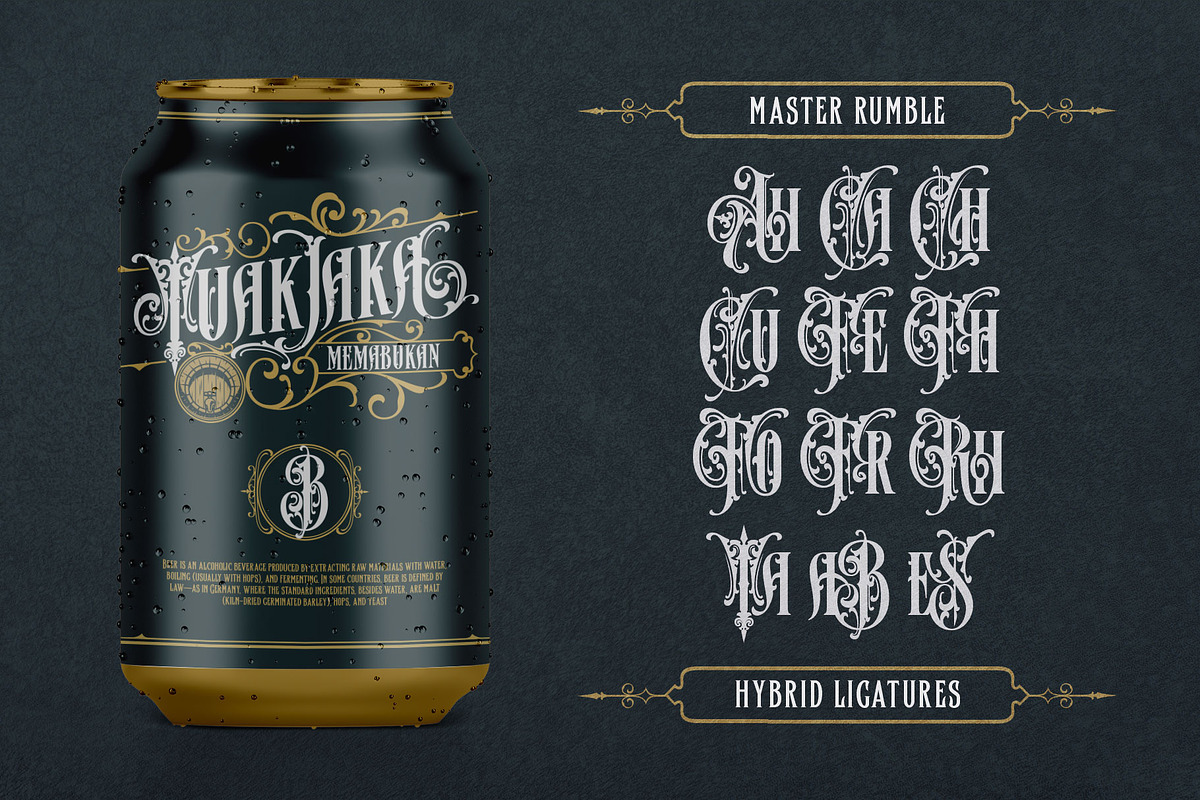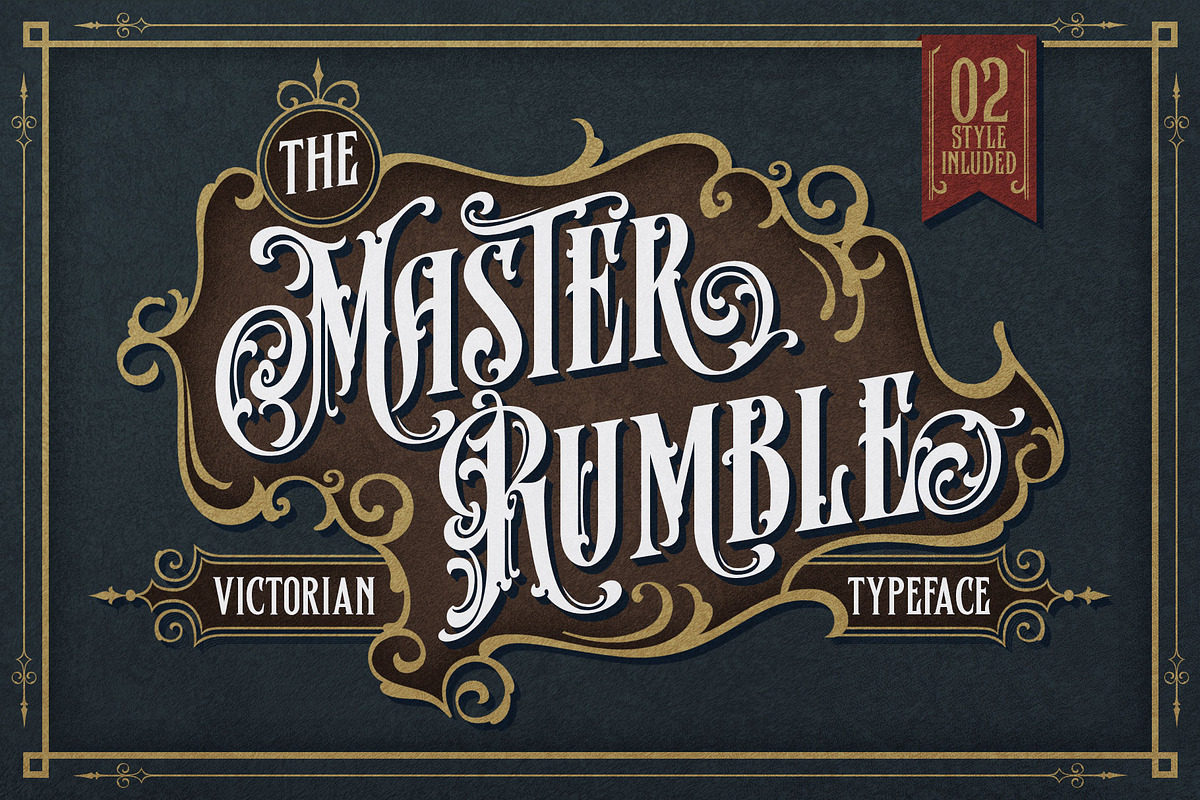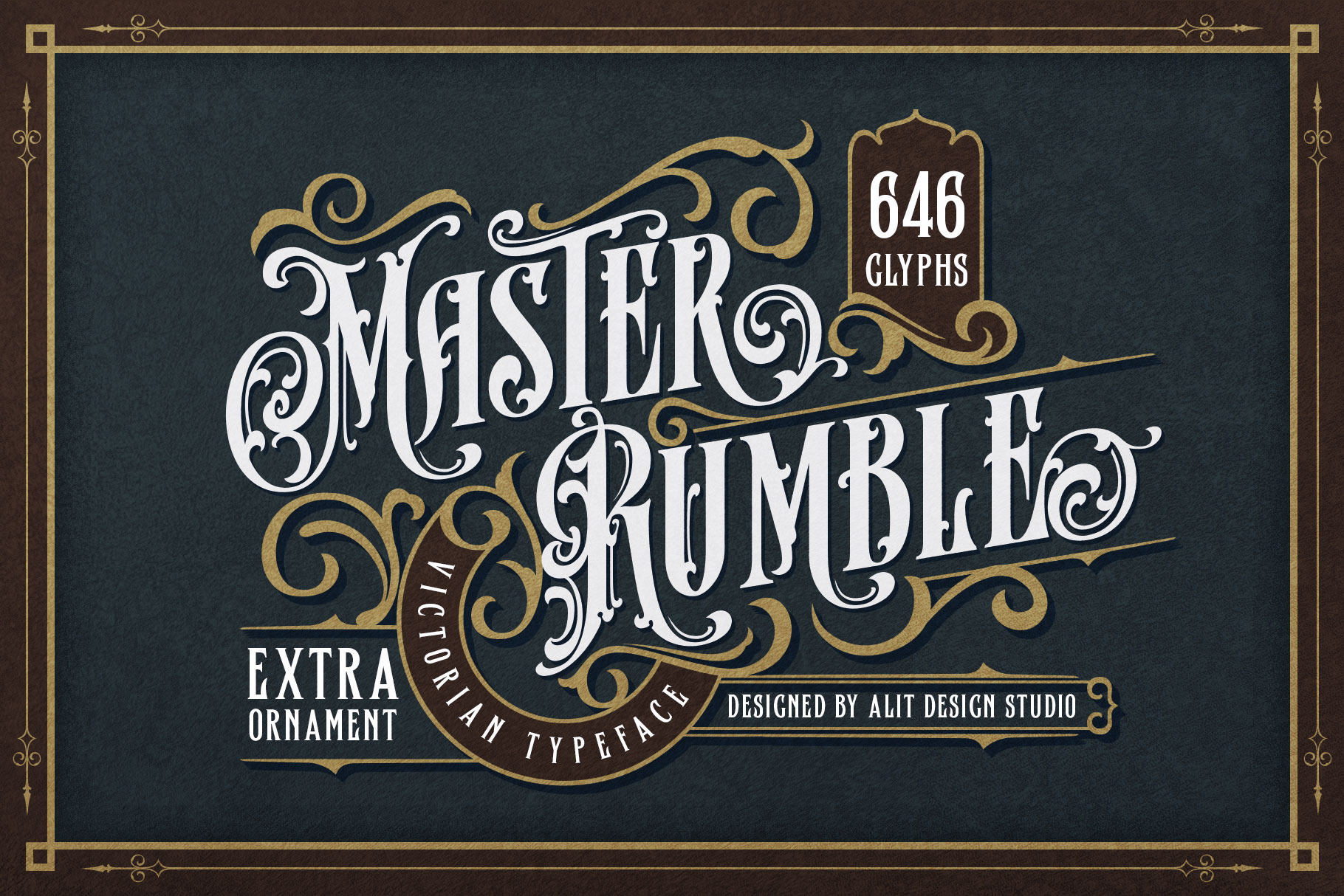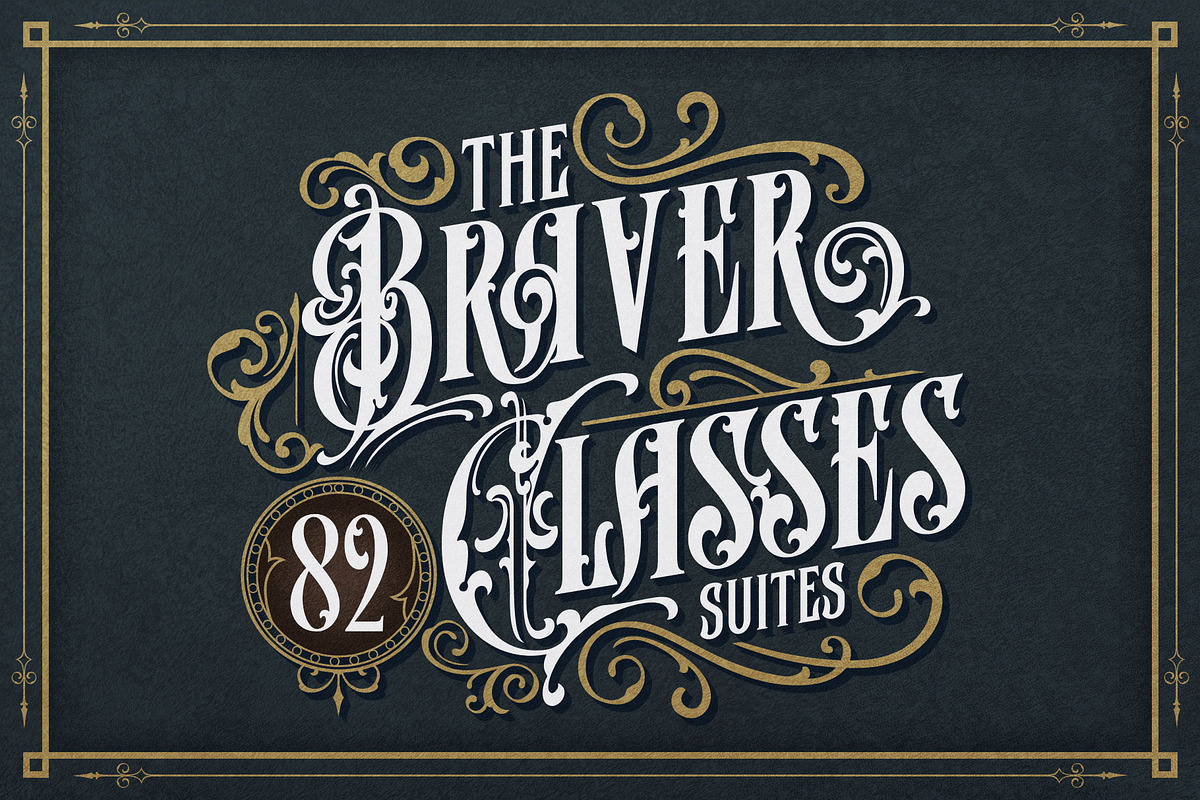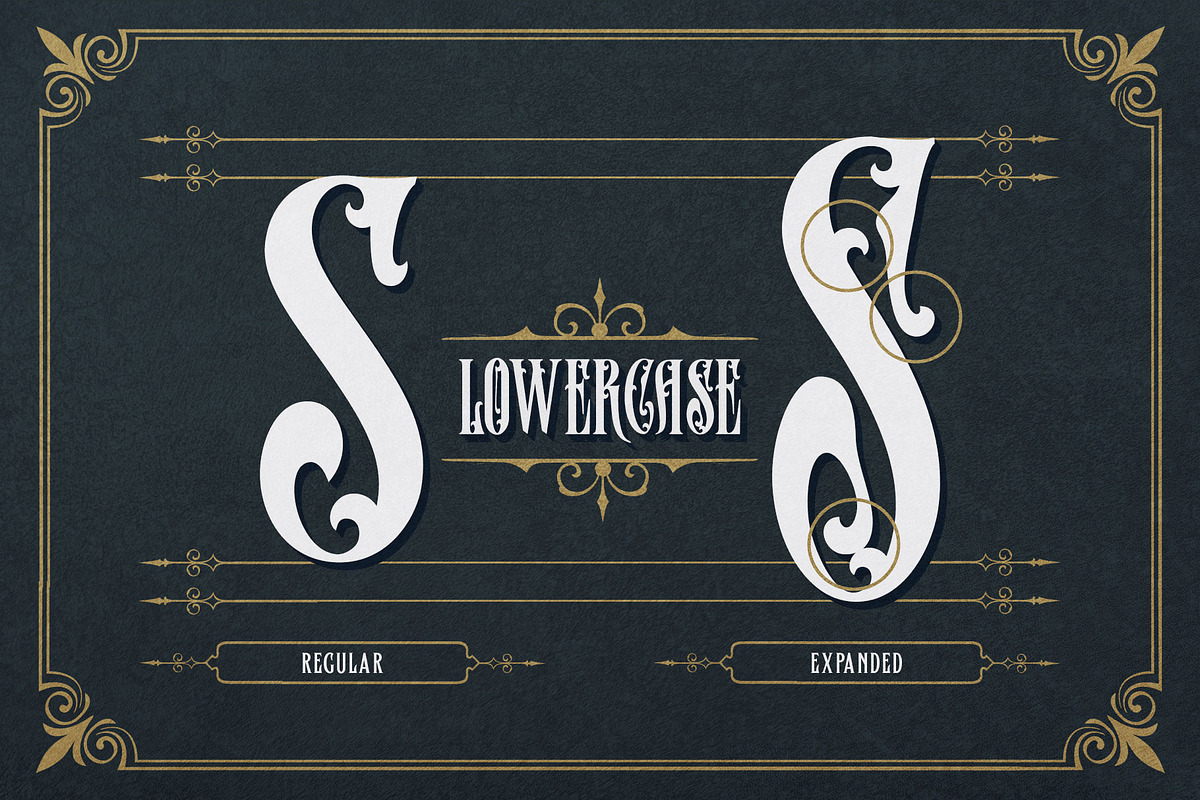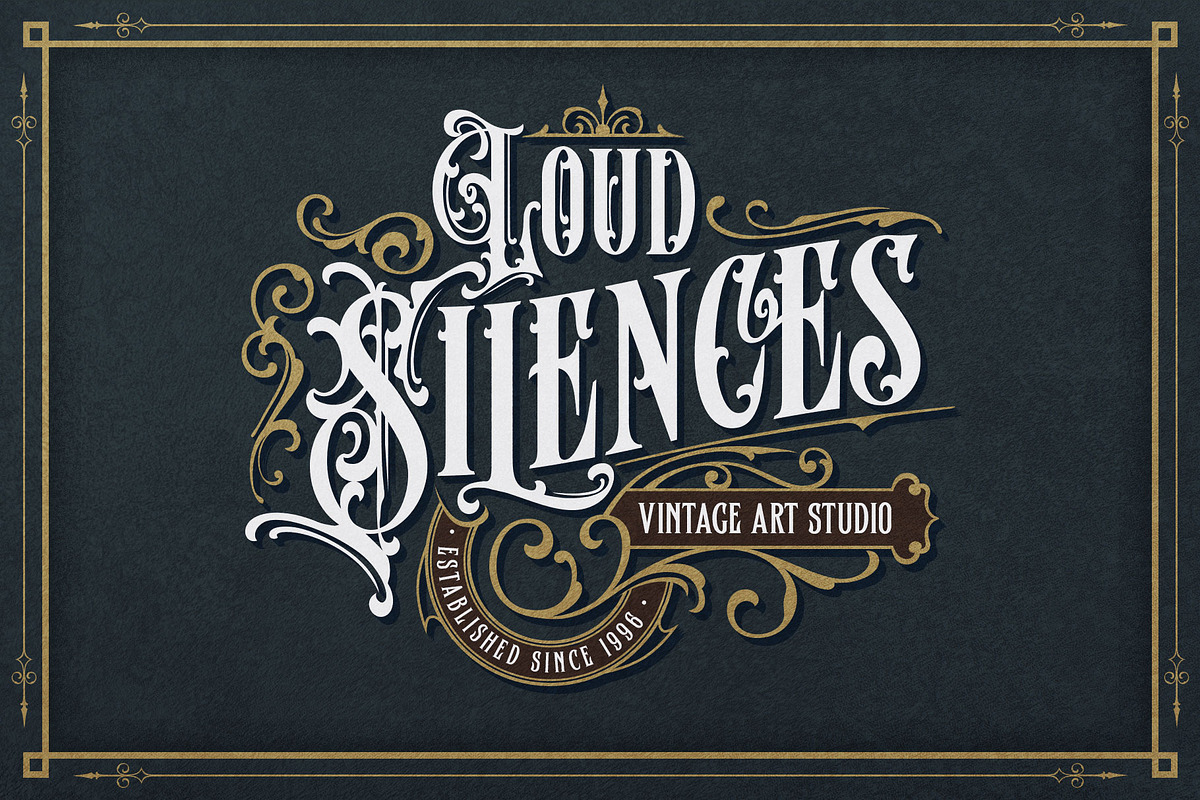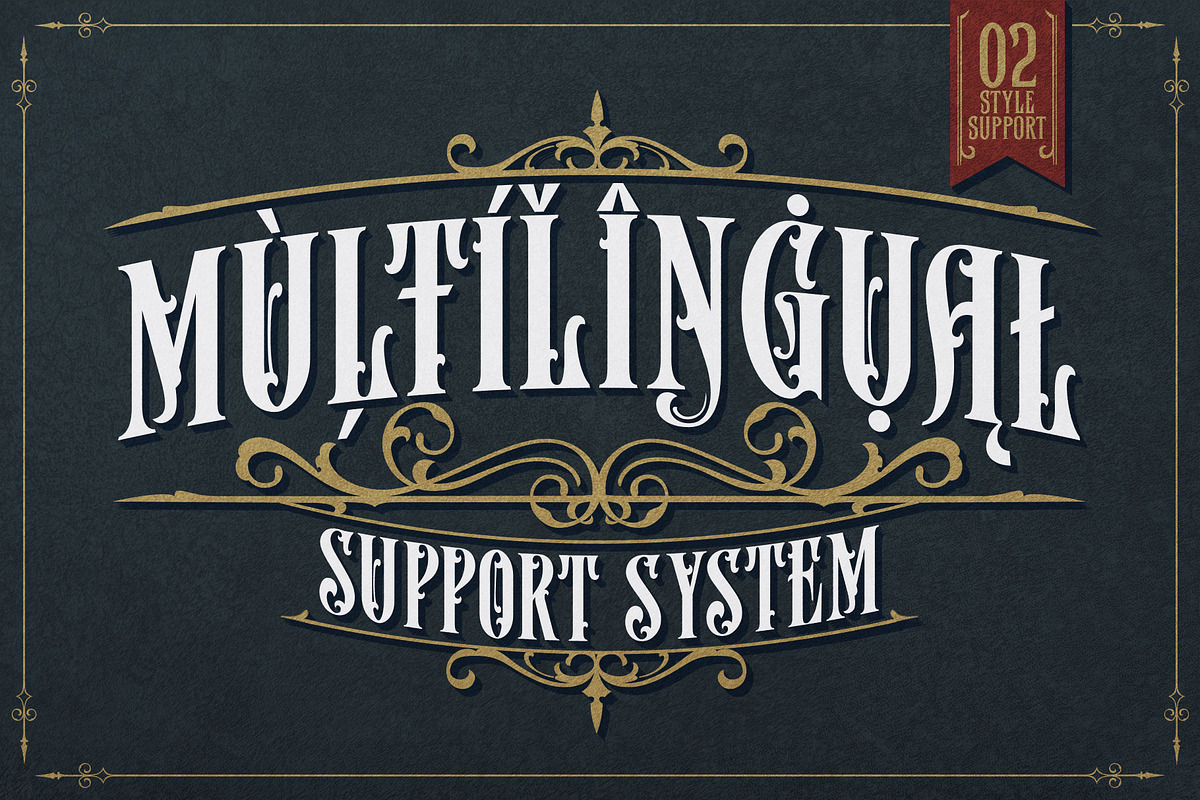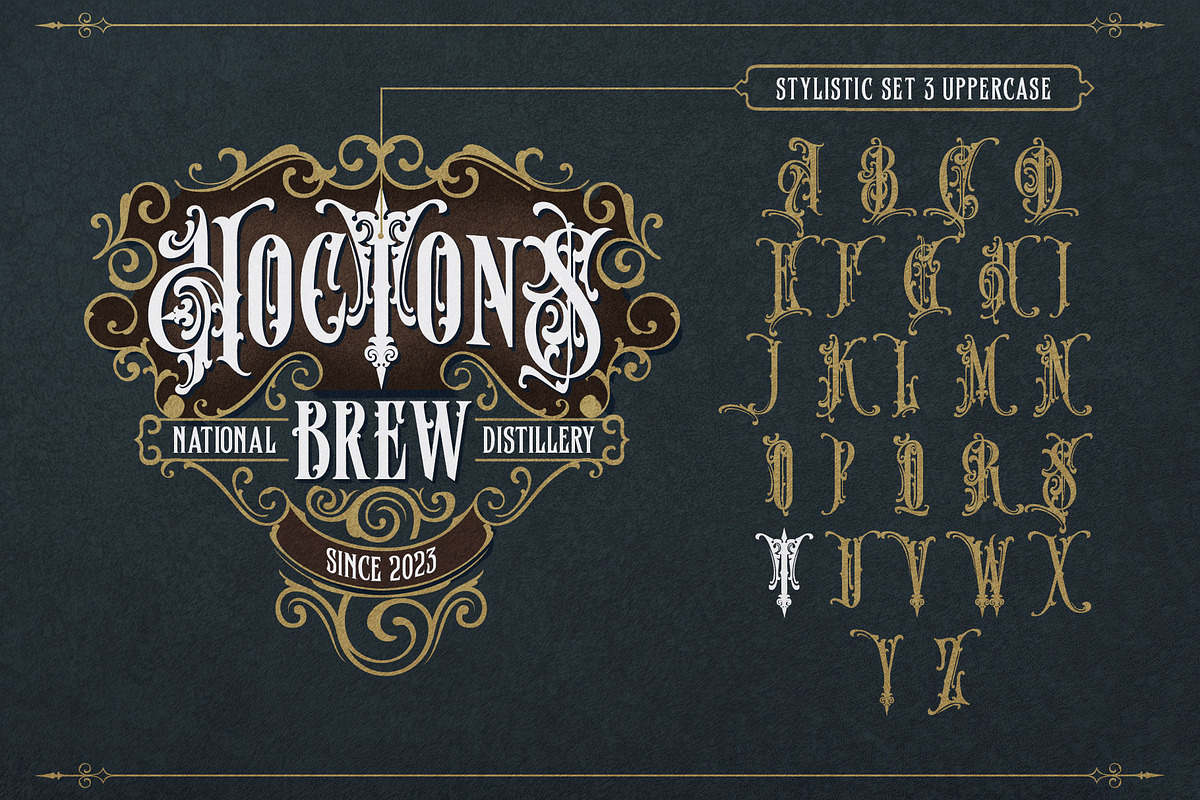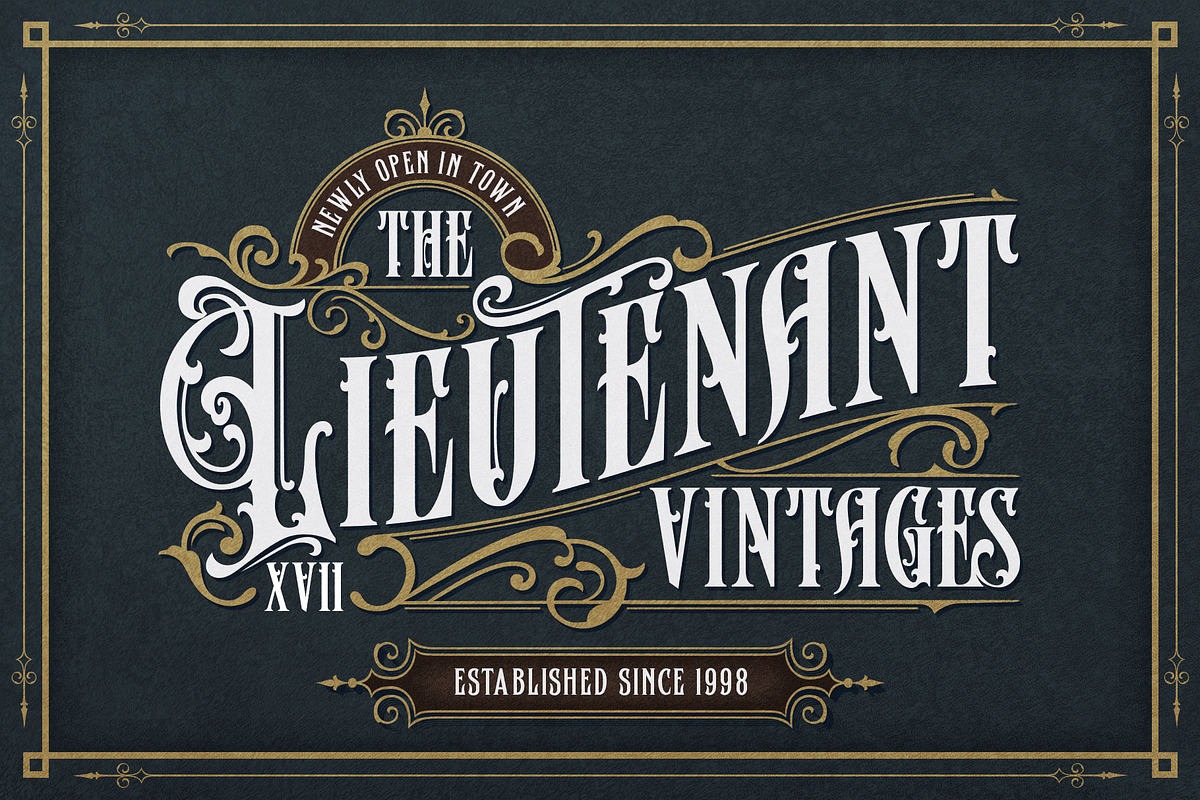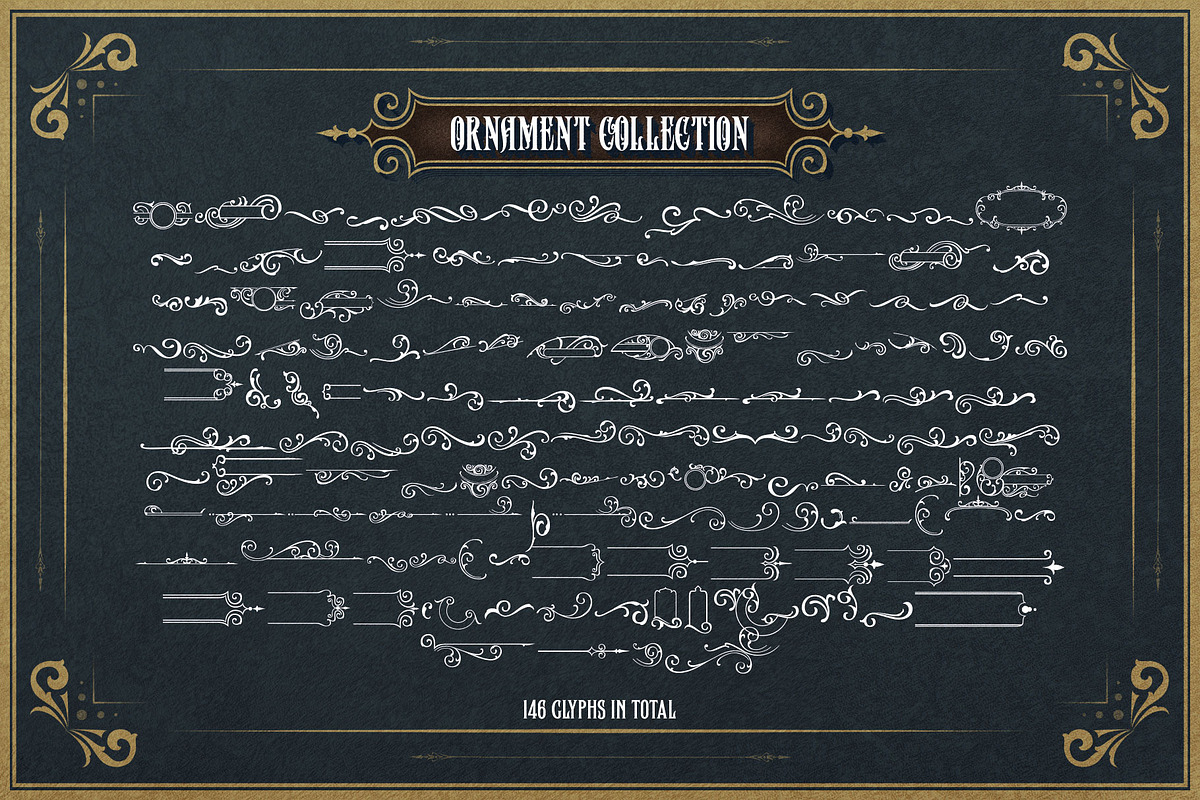
Master Rumble Victorian Typeface
Introducing "Master Rumble" - an exquisite font that embodies the timeless elegance of the Victorian era. With its ornate details and refined aesthetics, this font exudes a sense of grandeur and sophistication.
"Master Rumble" offers two distinct versions: the regular and expanded. The regular version maintains the classic proportions and delicate details, perfect for creating elegant headlines and body text. The expanded version, on the other hand, provides a more dramatic and impactful look, making it ideal for titles and display purposes. These two variants offer versatility and flexibility to suit different design needs.
With an impressive collection of 646 glyphs, "Master Rumble" empowers you to craft captivating typographic compositions. The font boasts an extensive range of alternative characters, allowing you to experiment with different letterforms and create unique combinations. This abundance of options gives you the freedom to customize and tailor the font to perfectly match your creative vision.
Enhancing the font's allure, "Master Rumble" comes with an additional 146 ornamental elements. These ornaments beautifully complement the Victorian style, enabling you to adorn your designs with decorative flourishes, frames, and borders. These intricate details add a touch of opulence and bring a sense of refinement to your typographic creations.
Furthermore, "Master Rumble" ensures seamless integration across diverse languages with its comprehensive multilingual support. Whether you're working on projects that require diacritics, special characters, or accents, this font provides the necessary tools to handle different languages effortlessly. It allows you to maintain consistency and elegance, regardless of the language or script you're working with.
In conclusion, "Master Rumble" is a font that epitomizes the Victorian elegance, offering a perfect balance between classic charm and contemporary design. With its regular and expanded versions, extensive glyph set, alternative characters, ornamental elements, and multilingual support, this font empowers designers to create captivating and sophisticated typographic designs that leave a lasting impression. Elevate your creative projects and embrace the timeless beauty of "Master Rumble".